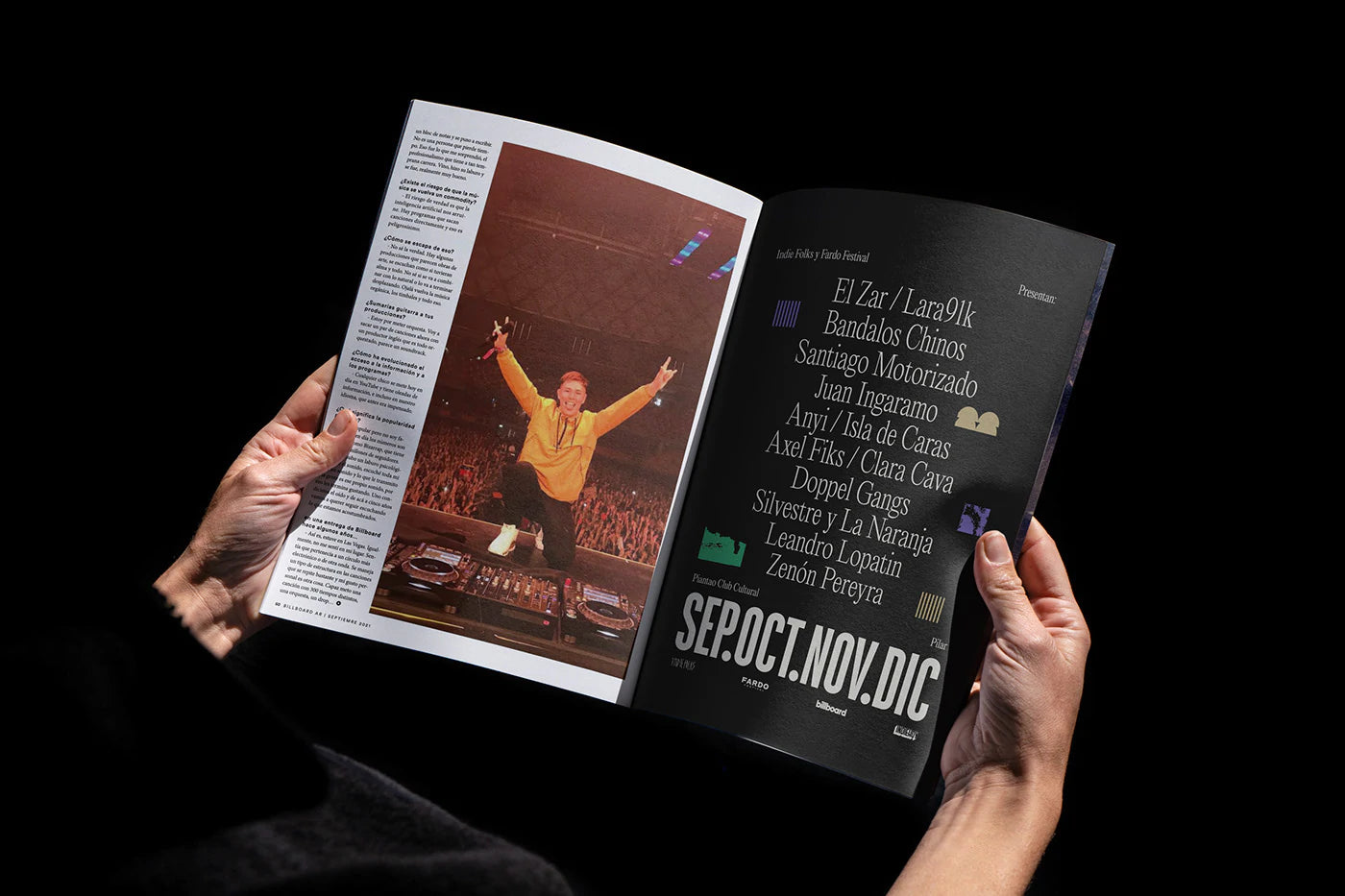
Indie Folks is an Argentinean record and festival production company that works with local and international artists.
They requested us to create the identity and communication assets for a series of shows in Pilar with several artists from the local scene.
Our proposal consisted of creating a graphic system with a bounded color palette, different organic shapes reminiscent of the show’s nature context, black & white treatment for photography to equalize the different styles, and two condensed typographies, one serif one industrial.